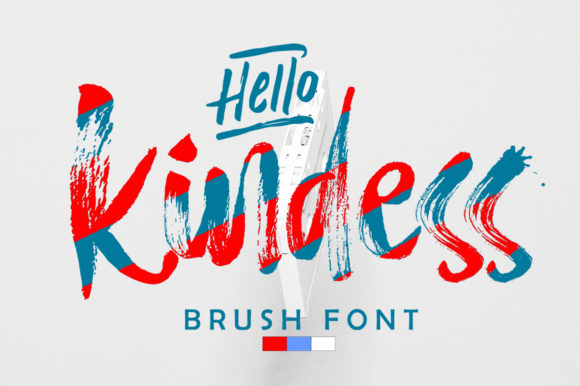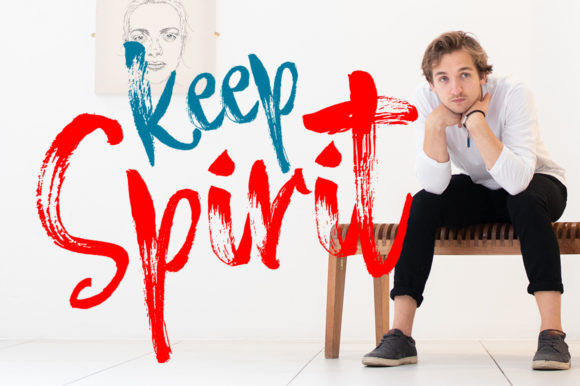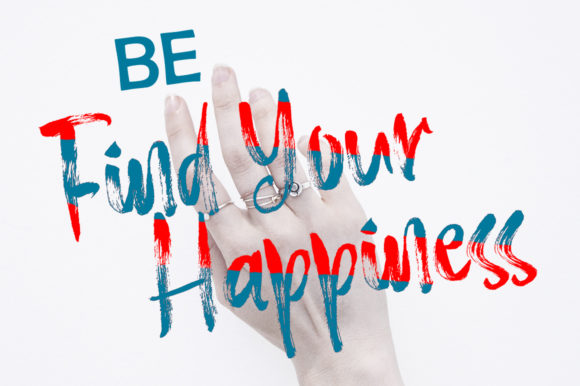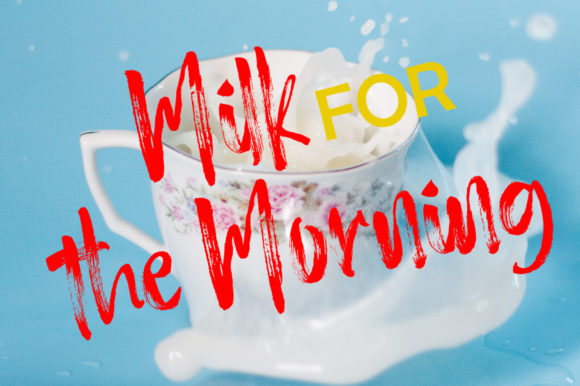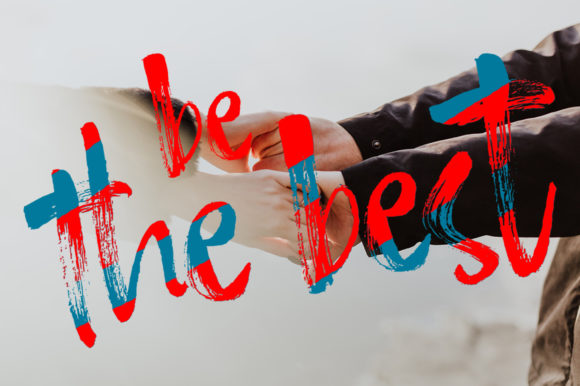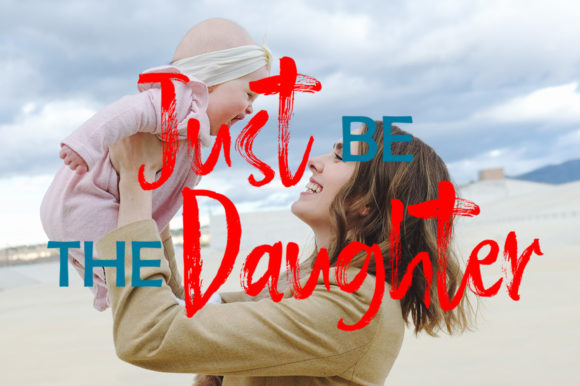
Hello Kindess Font
About Hello Kindess Font
Hello Kindess is a dynamic and playful script painted with a dry brush. This typographic effect gives it an undeniably authentic charm.